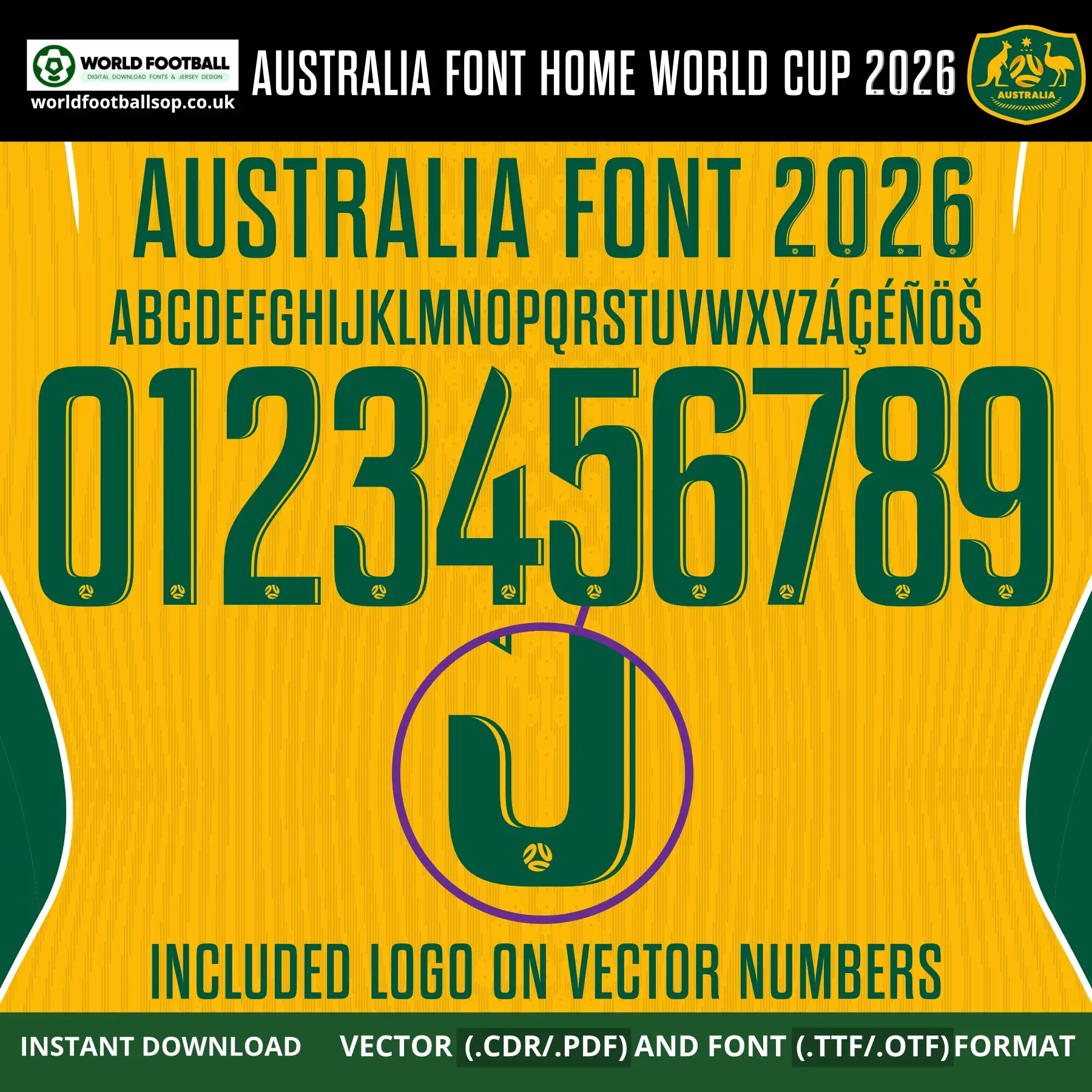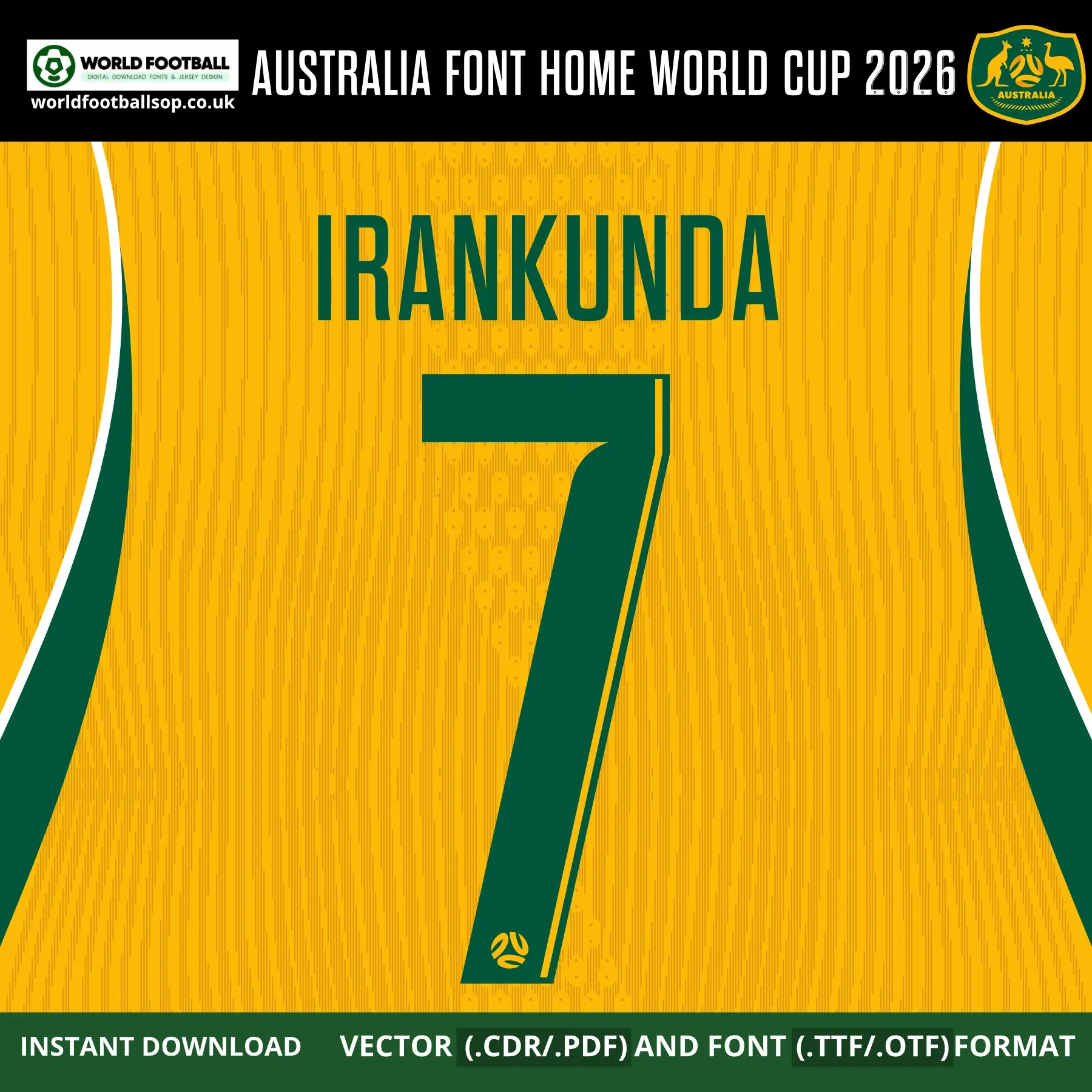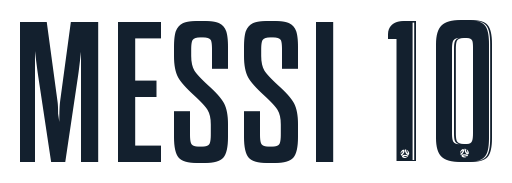
Australia Home Font World Cup 2026 - Official‑style Jersey Typography
This Australia Home Font World Cup 2026 kit recreates the bold, geometric lettering used on the Socceroos' iconic gold home shirts for the 2026 FIFA World Cup in USA, Mexico and Canada. The tall, rounded numbers and letters feature clean inner-line detail with the Football Australia crest embedded on every vector character, perfectly capturing the modern look of Australia's official home kit typography. It is perfect for fans, designers and printers who want authentic‑looking names and numbers on custom Socceroos kits and football graphics.
The font football is supplied in both desktop formats (TTF/OTF) and scalable vector files so you can work comfortably in your favourite design software. The deep forest green lettering on a vibrant gold home kit background seen in the previews mirrors Australia's official home colour palette, making your mockups and prints look match‑ready. Every vector number includes the embedded Football Australia (FA) crest logo for maximum authenticity.
Football Australia crest logo embedded on every vector number and letter
Full uppercase alphabet A-Z and numbers 0-9 with extended Latin accents (Á, Ç, É, Ñ, Ö, Š)
World Cup accuracy: Inspired by the exclusive Australia Home Font World Cup 2026, not a generic typeface
High legibility: Bold, rounded geometric forms keep numbers clear on both TV and print designs while maintaining Australia's unique gold and green identity
Whether you are designing a full squad of custom Socceroos shirts or a single fan jersey with your own name and number, this Australia Home Font World Cup 2026 gives your project a professional, on‑pitch look.